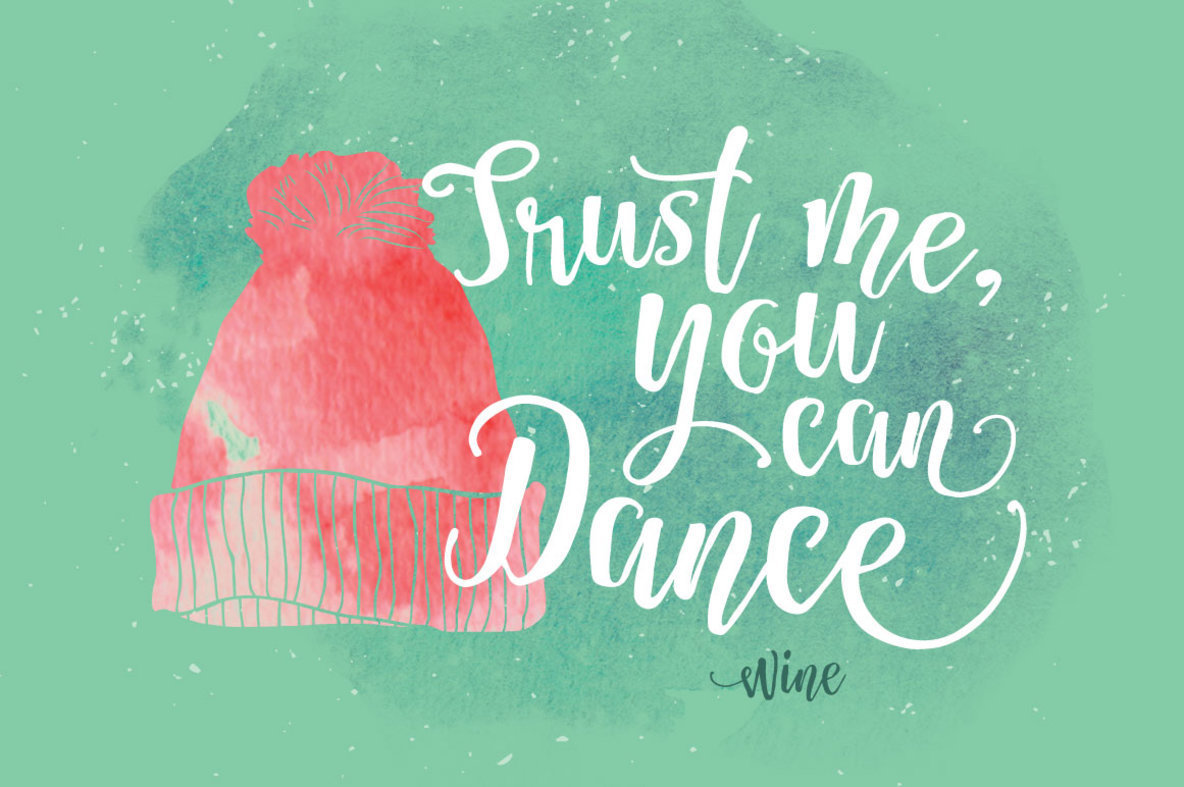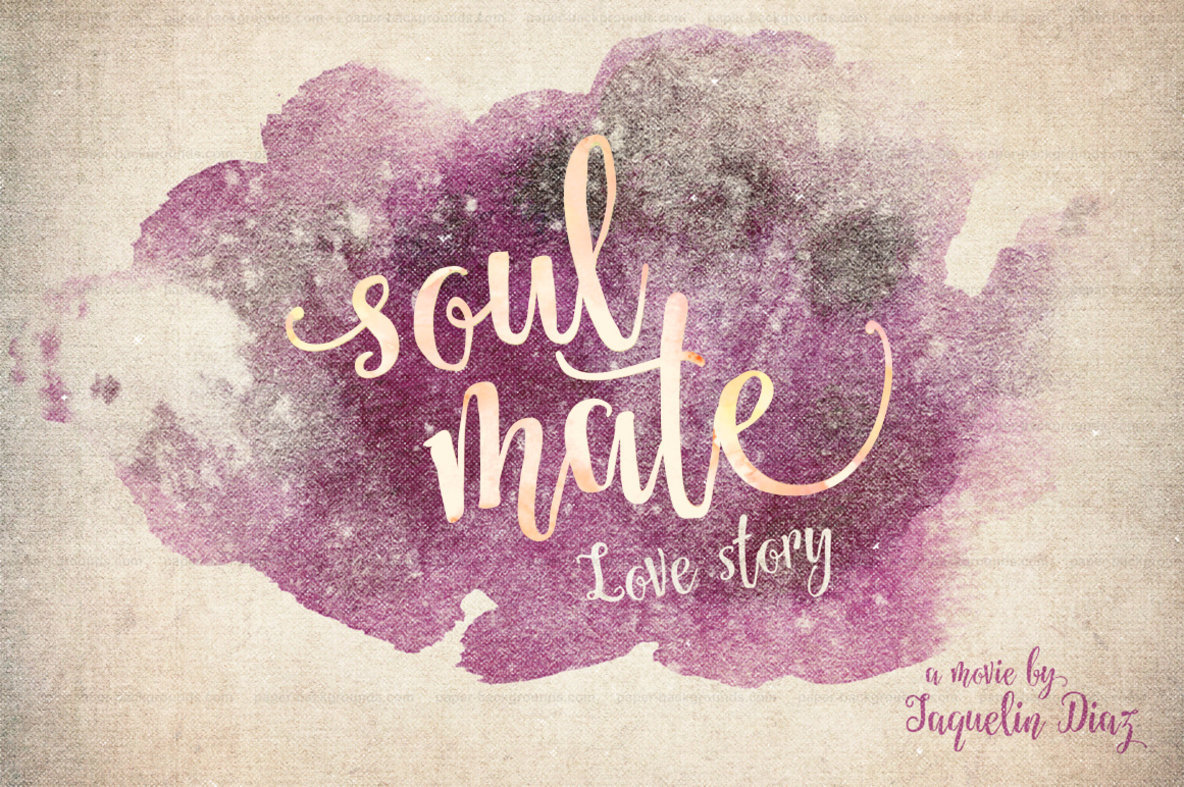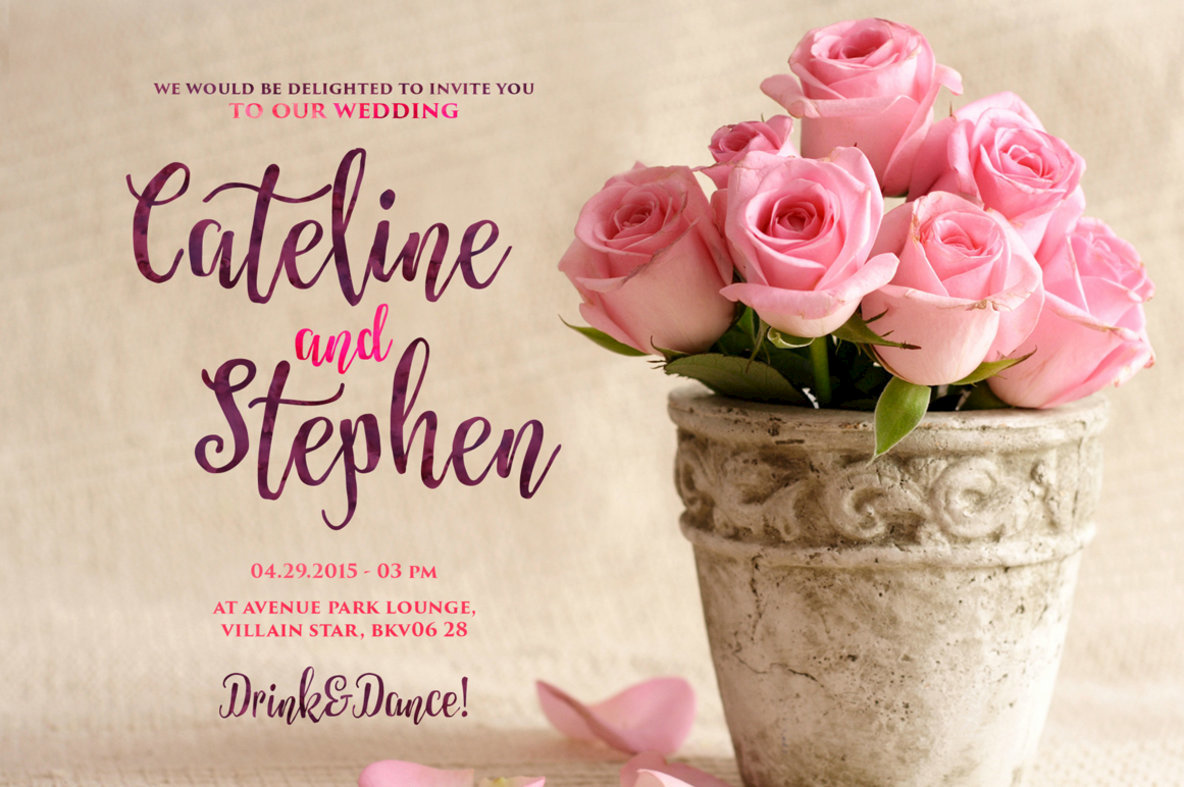
Snatchy Font
Snatchy
Snatchy is a fun handmade script font with a strong natural feel. With the dynamic shape and irregular baseline, Snatchy could easily attract the attention to your message. It makes the design look personal and natural. Snatchy suitable for vintage design as well as modern design, it can be used in your watercolor design project, greeting card, poster, t-shirt design, branding, etc.